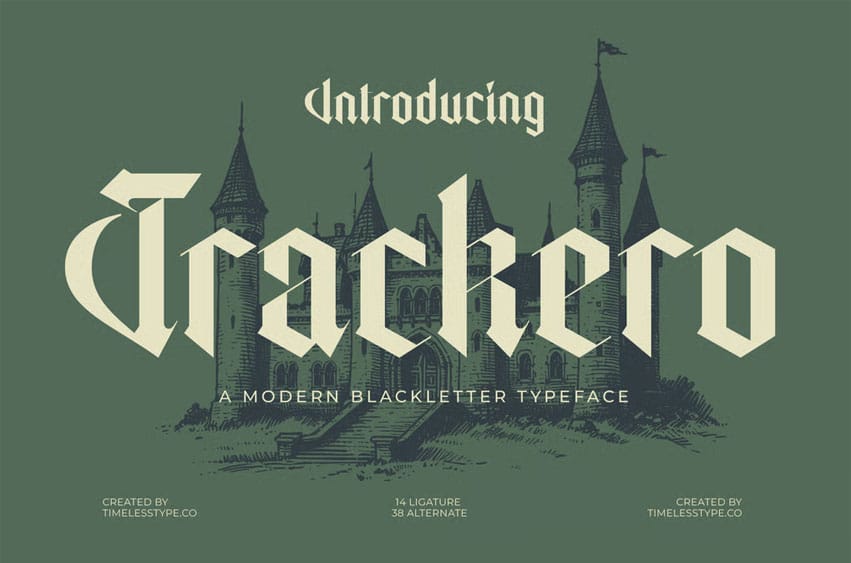
Trackero Font is a modern blackletter typeface combining medieval gothic structure with clean contemporary refinements. Its sharp angles, bold strokes, and monolithic presence give it a strong, dramatic personality—perfect for branding, poster design, album covers, esports graphics, tattoo concepts, designs, and gothic-inspired visuals. The font delivers a powerful old-world mystique while still feeling modern and highly usable.
Featuring 14 ligatures and 38 alternates, Trackero provides extensive creative flexibility for crafting striking headlines, unique wordmarks, decorative compositions, and fully customized gothic layouts. Its distinctive sharp cuts, expressive character shapes, and dark medieval charm make it an outstanding choice for designers seeking a fierce, bold, and atmospheric blackletter display font.
Trackero Font Preview